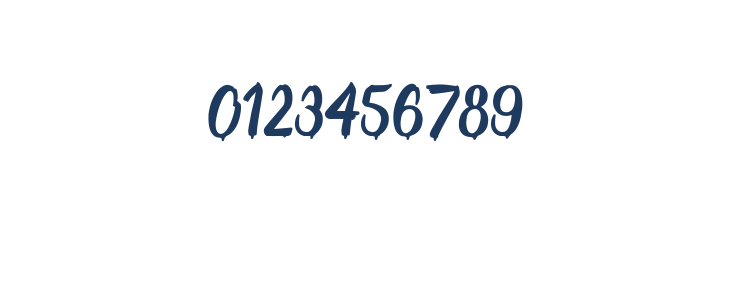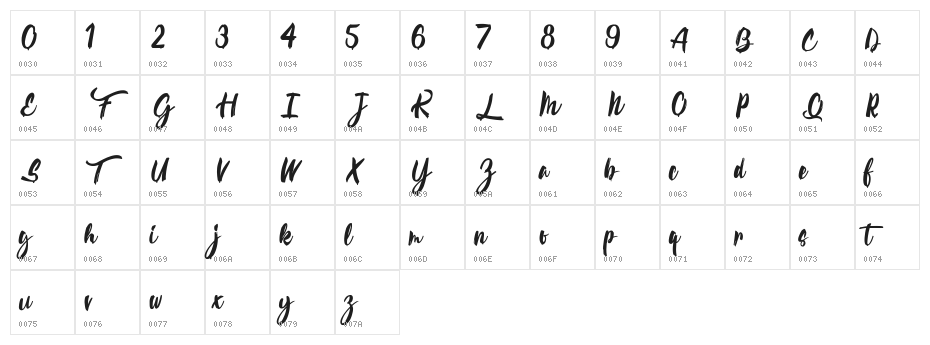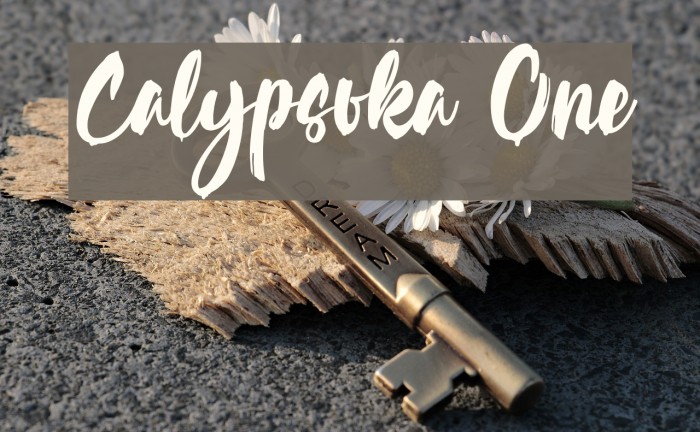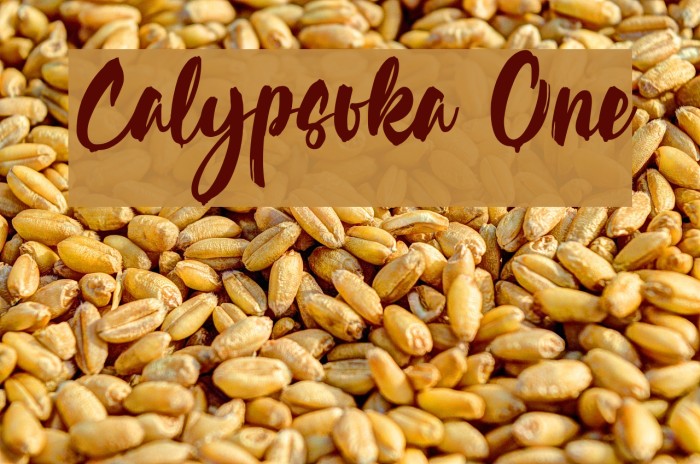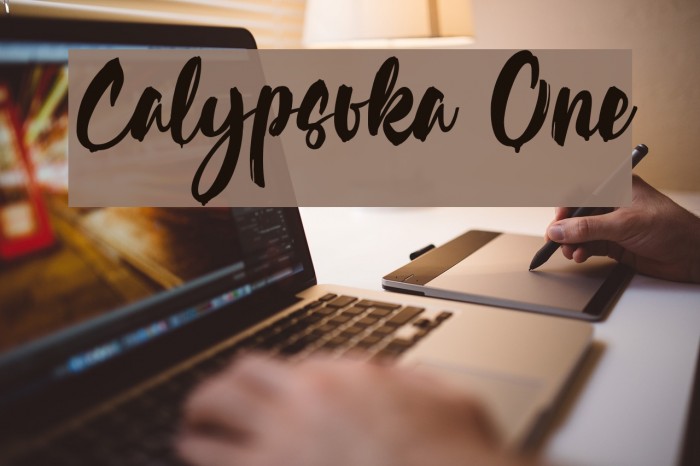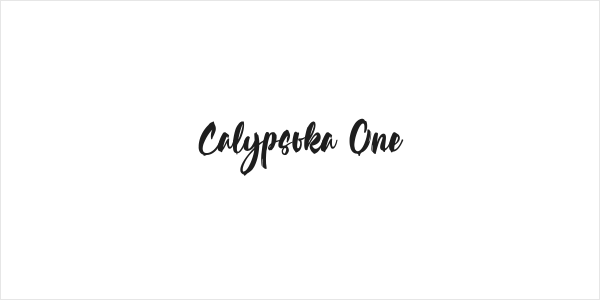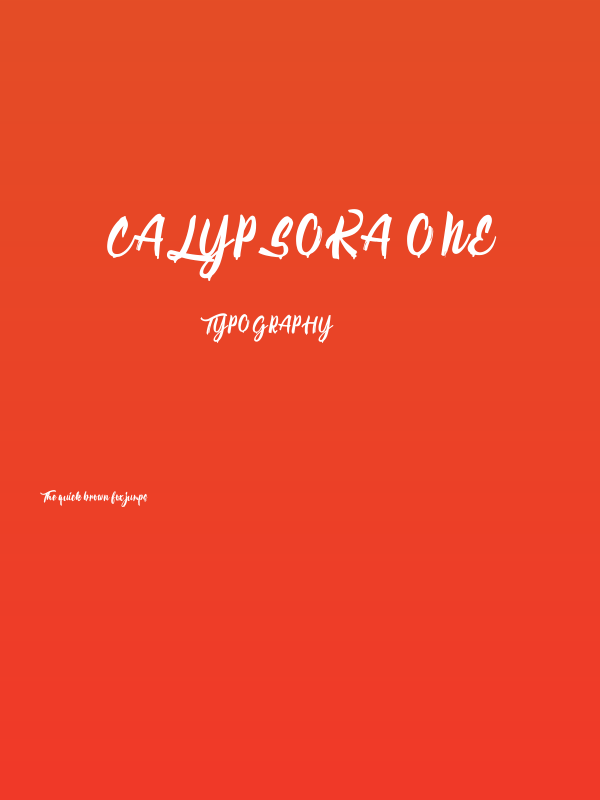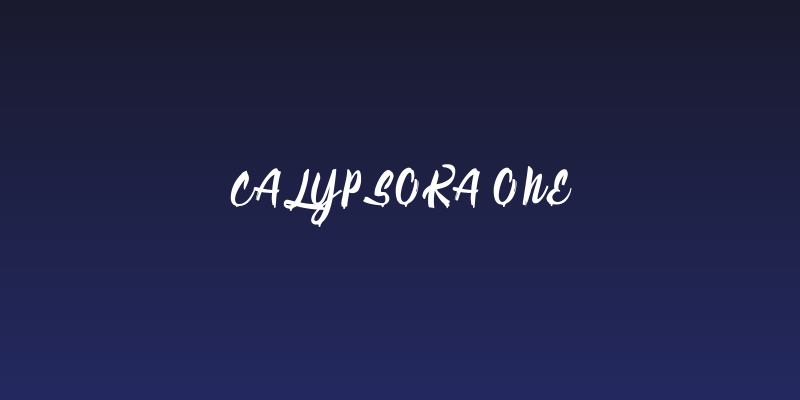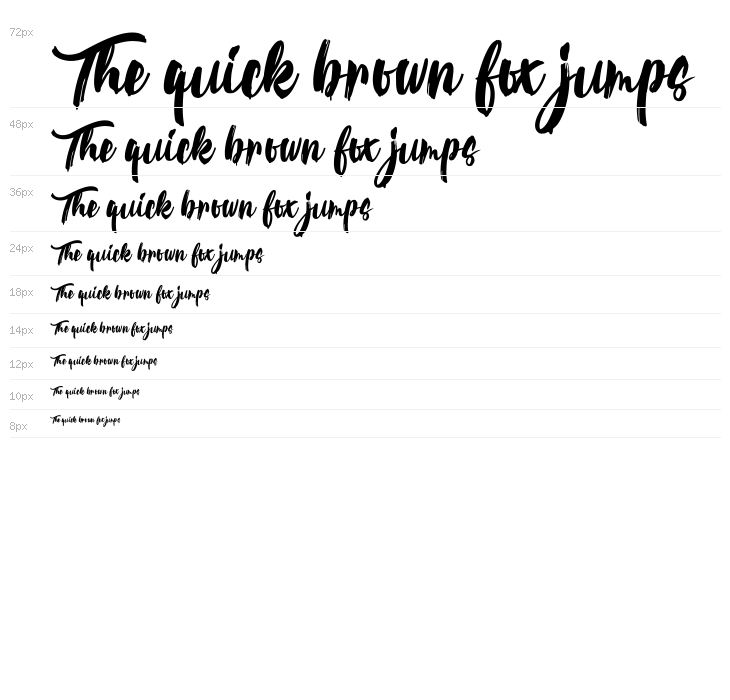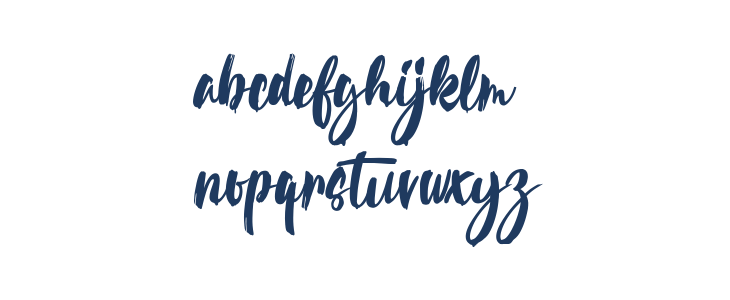
Calypsoka One Font
Calypsoka One Description
This font exudes a bold and expressive style, characterized by its brush-like strokes and dynamic flow. The uppercase letters are particularly striking, with a sense of movement and energy that suggests a handwritten quality. The lowercase letters maintain this fluidity, offering a cohesive look across the alphabet. Numbers and special characters are equally bold, ensuring consistency throughout. The overall appearance is both artistic and modern, making it suitable for creative projects that require a touch of flair.
| Proposed Projects | Ideal for branding, posters, invitations, and any project that benefits from a personal, artistic touch. |